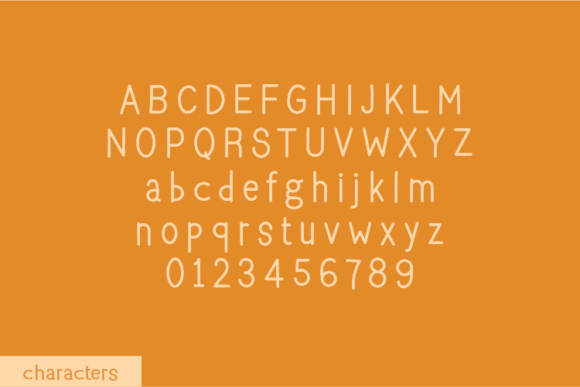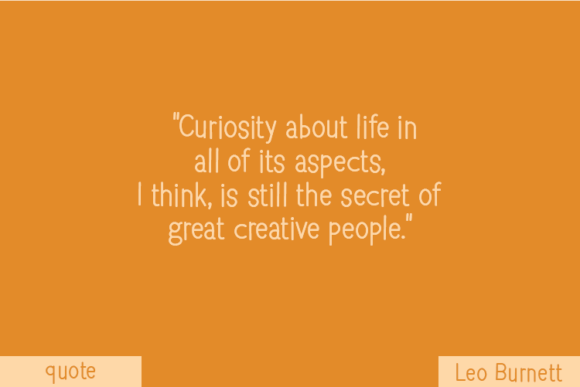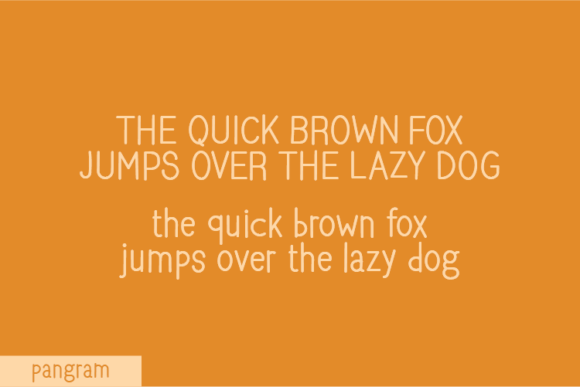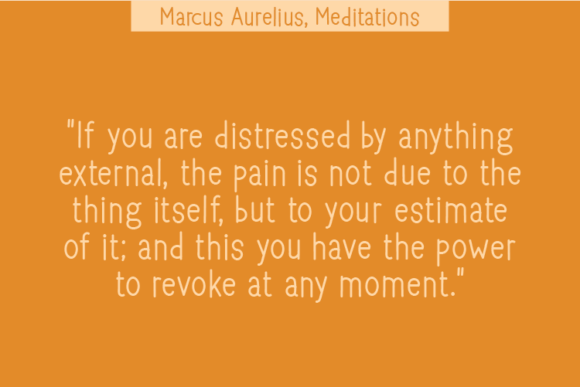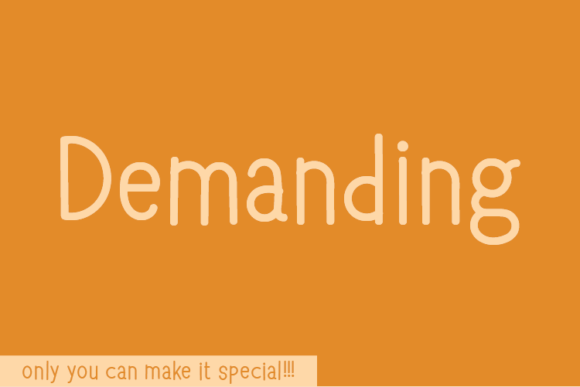
Introducing Demanding Font: A Unique Handwritten Style for Creative Designs
In the world of typography, a font can make or break a design. For designers and crafters, finding the perfect font that adds a personal touch to their work can be a daunting task. This is where Demanding Font comes in – a natural handwritten font that stands out from the rest due to its distinctive characteristics. In this article, we’ll dive into what makes Demanding Font unique and how it can elevate your designs.
The Story Behind Demanding Font
Demanding Font is a carefully crafted handwritten font that boasts a natural, effortless look. What sets it apart is the meticulous process by which it was created. Unlike other fonts that are often altered or manipulated to achieve a specific look, Demanding Font was made without changing a single node in each character’s indentation. This attention to detail results in a font that exudes authenticity and character.
Key Features of Demanding Font
- Natural Handwritten Style: Demanding Font has a genuine handwritten feel that adds a personal touch to any design.
- Unique Indentation: The font’s distinctive indentation, left untouched during the creation process, gives it a one-of-a-kind appearance.
- Versatility: Perfect for a wide range of applications, including quotes, notes, tees, and any product design that requires a personal touch.
Why Choose Demanding Font?
For designers and crafters looking to stand out in a crowded market, Demanding Font offers several advantages:
- Originality: Its unique indentation and natural style ensure that your designs will not only be noticed but also remembered.
- Easy to Read: Despite its handwritten nature, Demanding Font remains clear and legible, making it suitable for both digital and print designs.
- Time-Saving: With Demanding Font, you can achieve professional-looking results without spending hours on custom typography.
Using Demanding Font in Your Designs
Incorporating Demanding Font into your projects is straightforward. Here are a few ideas to get you started:
- Quotes and Sayings: Add a personal touch to inspirational quotes, humorous sayings, or any text that needs to resonate with your audience.
- Notes and Journals: Use Demanding Font to create visually appealing notes, journal covers, or diary pages that stand out.
- T-Shirts and Merchandise: Design custom tees, mugs, or other products with Demanding Font for a unique and eye-catching look.
- Product Design: Elevate your product design with custom typography that speaks to your brand’s personality.
Demanding Font is more than just a typeface – it’s a design statement. Its natural handwritten style, combined with its unique indentation, makes it a valuable asset for designers and crafters looking to add a personal touch to their work. Whether you’re creating quotes, notes, tees, or product designs, Demanding Font is the perfect choice for those who value originality and authenticity. So why settle for ordinary fonts when you can make a statement with Demanding Font?